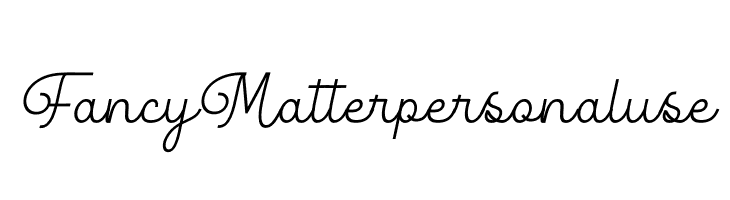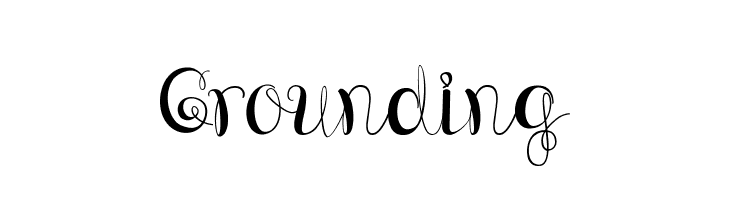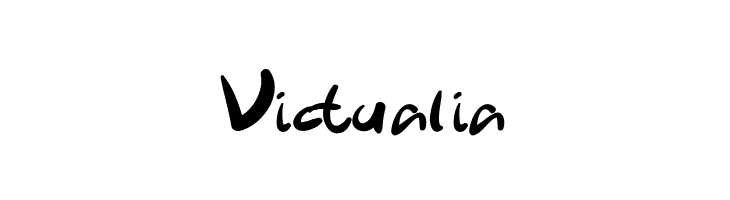
A whimsical and decorative font with elegant swirls and loops.
An elegant, flowing script font with a sophisticated cursive style.
A bold, hand-drawn font with a textured, playful appearance.
A bold, expressive brush script font with dynamic strokes and a handcrafted feel.
A bold, angular font with a futuristic, robotic aesthetic.
An intricate, decorative font with medieval-inspired patterns and bold uppercase letters.
A bold, playful handwritten font with dynamic and irregular strokes.
A playful, handwritten font with fluid, cursive strokes and a casual elegance.
A decorative, modern font with elongated, geometric letterforms.
A bold, geometric font with sharp, angular cuts for a futuristic look.